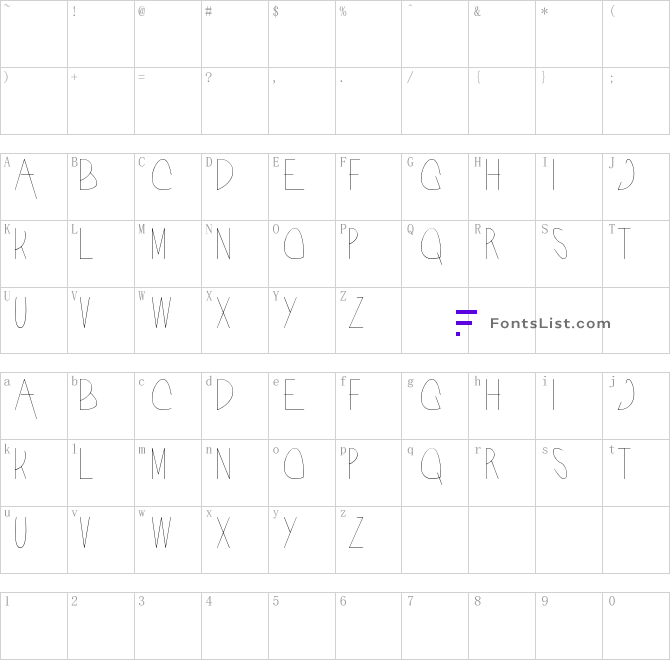
- Font Name:Acorn
Acorn.ttf is a very beautiful artistic font, Acorn.ttf is widely used in the design and printing of various books and pictures,Acorn.ttf has a strong visual impact,Acorn.ttf is a commonly used font in newspapers, magazines and books, and is used in posters, e-commerce Poster design, store design, logo design, font design and other fields.Acorn.